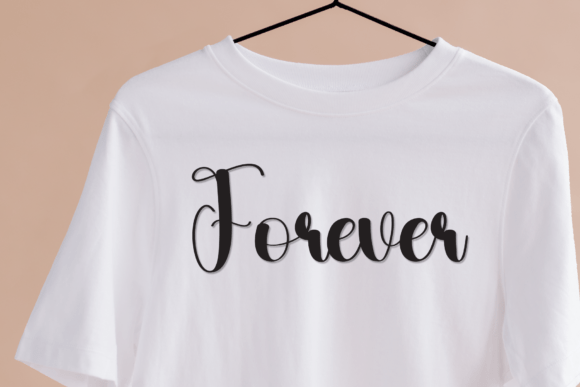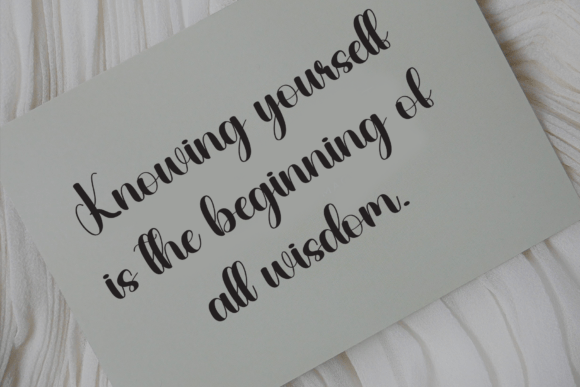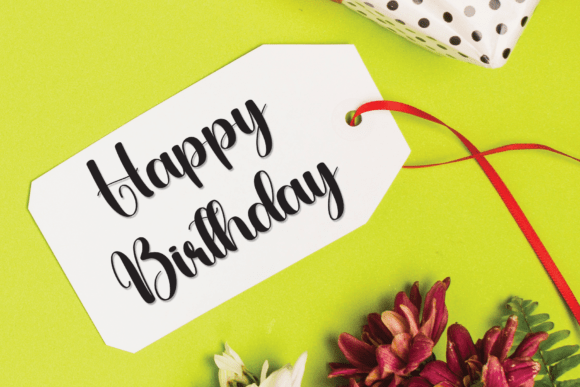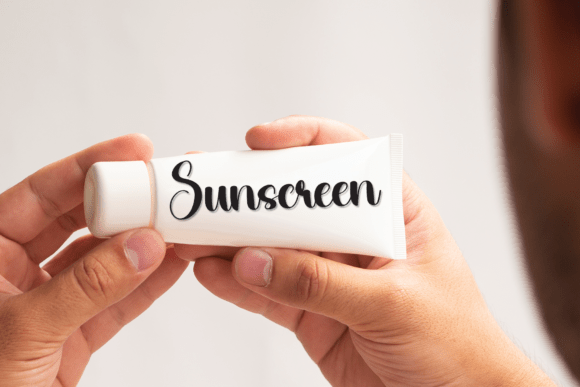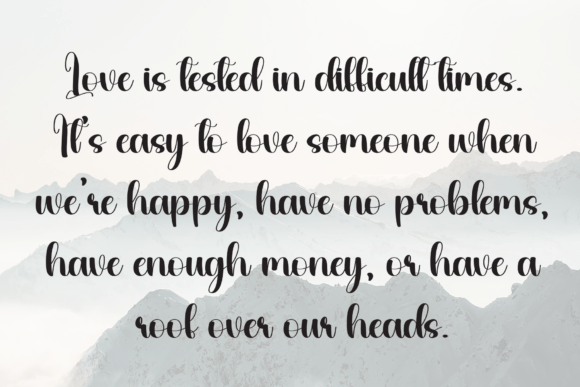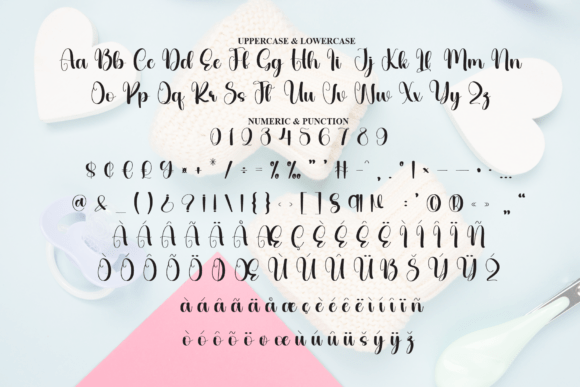
The Perfect Font for Your Next Design Project
Have you ever been scrolling through Pinterest, and a beautifully designed wedding invitation catches your eye? You can’t help but wonder what makes it so special. Is it the color palette? The layout? The font? For designers, finding the right font can make all the difference in creating a captivating design. That’s where the Baby Stocking Font comes in – a charming, hand-crafted typeface that’s sure to bring a smile to your audience’s faces.
This delightful display font is designed to add a playful, endearing touch to any design project. Whether you’re creating wedding invitations, greeting cards, or any other type of design, the Baby Stocking Font is the perfect choice. Its friendly, handwritten feel makes it an excellent addition to any project requiring an uplifting, joyous ambience. With this font, you’ll be able to create designs that truly stand out and leave a lasting impression on your audience.
Baby Stocking Font Key Features
- Unique Characteristics: Hand-drawn design, playful and whimsical feel, perfect for festive and holiday-themed projects
- Font Style: Casual, Script, Handwritten
Baby Stocking Font Review
As a designer, I was excited to dive into the Baby Stocking Font. Overall, it’s a cute and playful font that’s perfect for festive designs, especially around the holiday season. ✨ I appreciate the font’s whimsical feel, which is sure to add a touch of magic to any project.
- ✨ Unique and creative design that stands out from more traditional fonts
- ✨ Perfect for use in digital and print projects, from social media graphics to holiday cards
- ✨ Highly customizable, allowing designers to tailor the font to their specific needs
- ⚠️ The font may be too playful for more serious or formal projects
- ⚠️ Some users may find the font’s irregularities distracting, particularly in large blocks of text
Overall, I’d say the Baby Stocking Font is a great choice for designers looking to add some festive flair to their projects. While it may not be suitable for every occasion, it’s a great option for holiday-themed designs and other projects where a playful touch is needed.
Tips for Getting the Most Out of Baby Stocking Font
For the best results, use Baby Stocking Font in conjunction with festive colors and imagery, such as red and green stripes or Christmas trees.
Baby Stocking Font is ideal for creating festive holiday cards, gift tags, and social media graphics. It’s also a great choice for baby shower invitations and decorations.